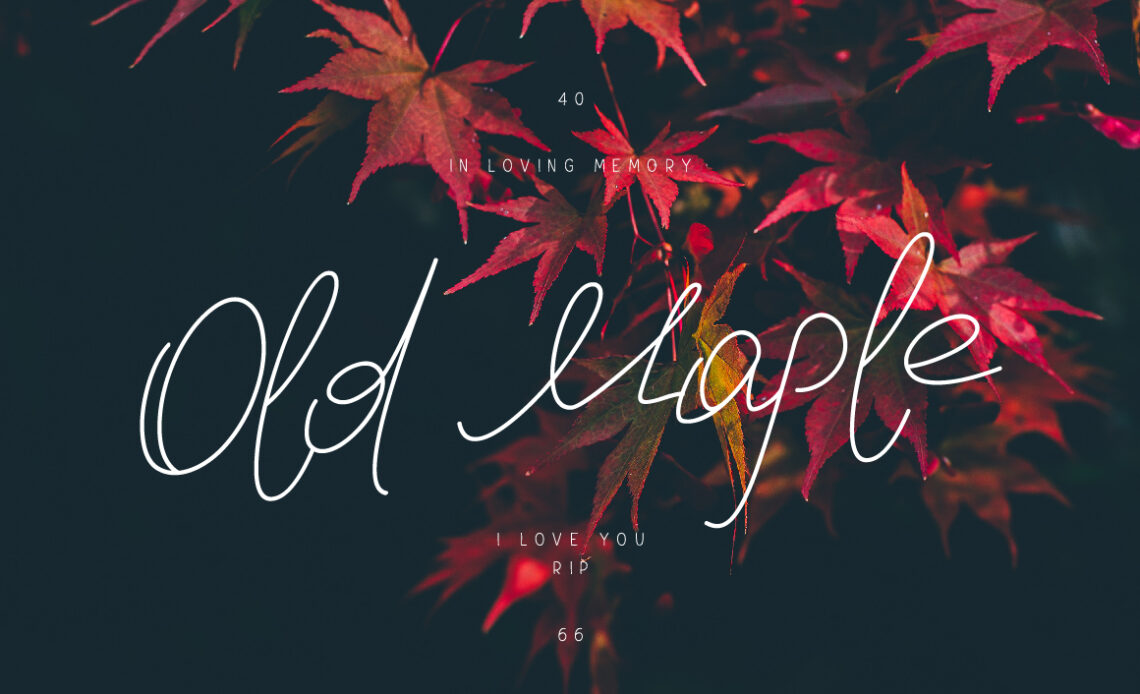
**Embark on a Timeless Typographic Adventure with Old Maple Font: A Legacy Etched in Ink**
In a world where digital expression reigns supreme, fonts hold the power to transform words into captivating narratives. Among the myriad of fonts that grace our screens, Old Maple Font stands out as a true gem, a testament to the enduring charm of handwritten elegance.
Crafted with meticulous care, Old Maple Font is a script font that emanates the warmth and familiarity of a loved one's handwriting. Its letters, meticulously traced from the pages of a cherished notebook, carry with them a sense of history and authenticity that is both captivating and timeless.
Old Maple Font is not merely a collection of characters; it is an invitation to embark on a typographic adventure where every word you write becomes a work of art. Its graceful curves and subtle flourishes lend an air of sophistication to any design, whether it's a heartfelt letter, an eye-catching social media post, or an unforgettable brand logo.
With its comprehensive character set, including uppercase and lowercase letters, a full range of punctuation, numerals, and ligatures, Old Maple Font empowers you to express yourself with precision and flair. Its multilingual support ensures that your message transcends language barriers, reaching a global audience with ease.
Dive into the world of Old Maple Font and discover the endless possibilities it holds. Let its timeless beauty elevate your designs, evoke emotions, and leave a lasting impression on your readers.
**Features that Make Old Maple Font a Must-Have:**
* Complete set of uppercase and lowercase characters
* Extensive punctuation, numerals, and ligature options
* Cyrillic character support for multilingual designs
* Meticulously crafted from handwritten letters
* Perfect for adding a touch of authenticity and elegance to any project
**Reasons Why You Can't Resist Old Maple Font:**
* Breathe life into your digital creations with its handwritten charm
* Express your emotions and evoke nostalgia through its graceful curves
* Capture attention and make a lasting impression with its timeless beauty
* Create designs that transcend language barriers with its multilingual support
* Own a piece of history, embodied in the letters of a cherished notebook
**Take your typography to new heights with Old Maple Font. Its timeless elegance and versatility will make it an indispensable tool in your creative arsenal.**